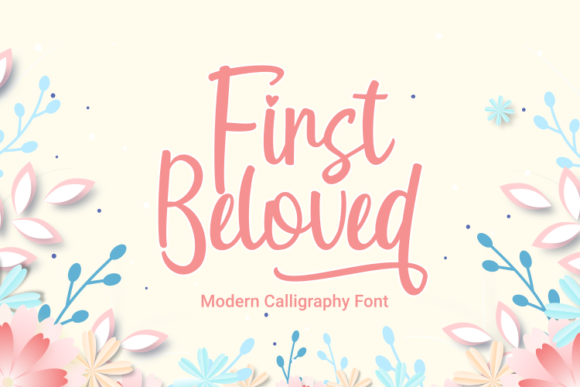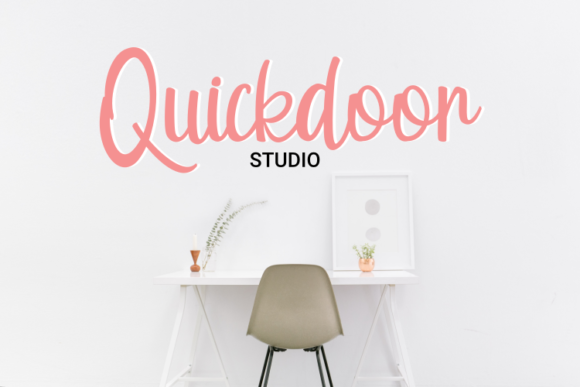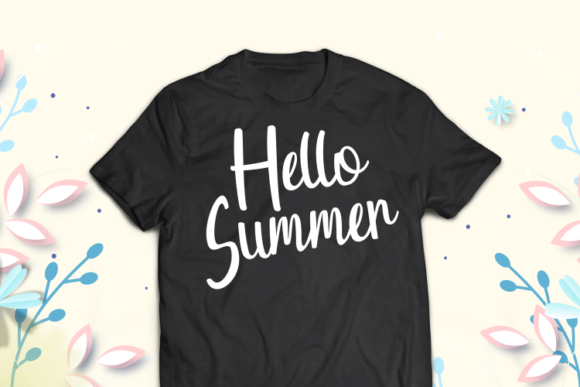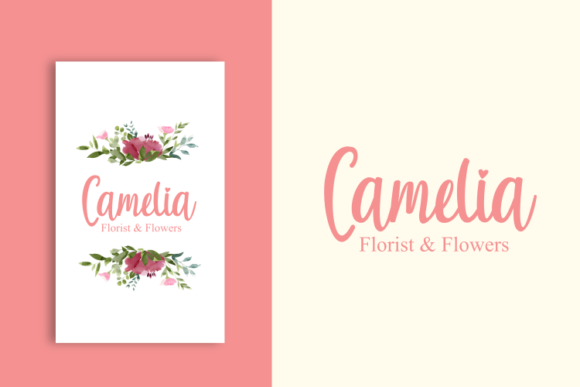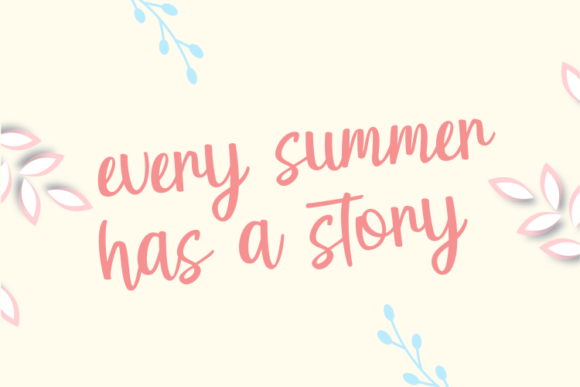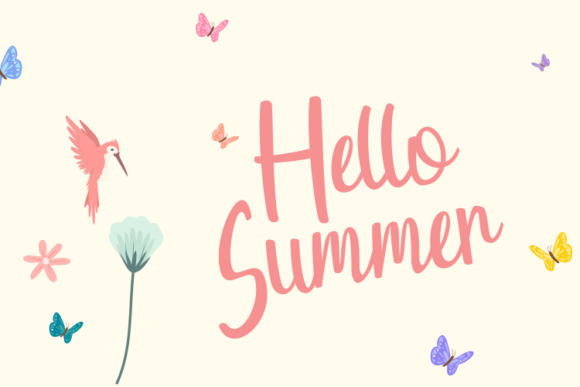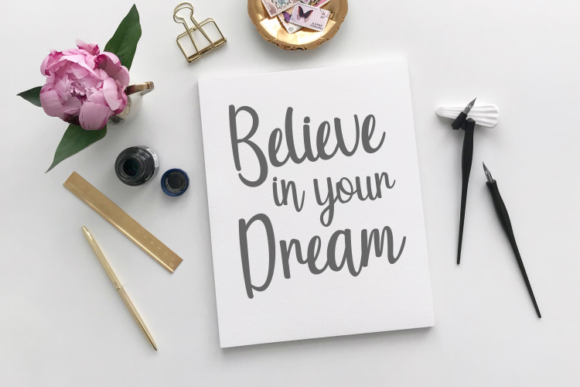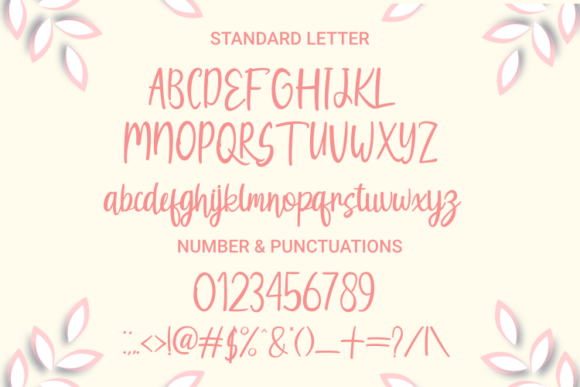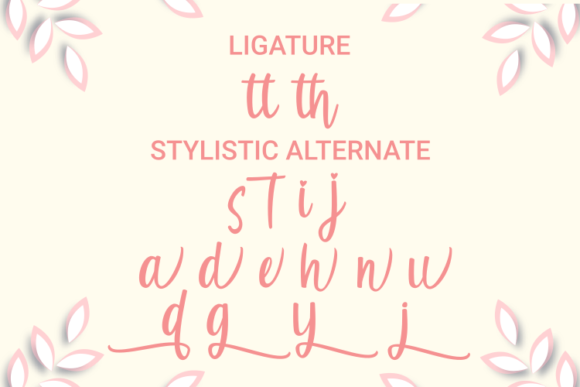
First Beloved Font
About First Beloved Font
First Beloved feels equally charming and modern. This stunning handwritten font is a stylish homage to classic calligraphy. It features a varying baseline, smooth lines, gorgeous glyphs and stunning alternates. First Beloved is the perfect font for making original and outstanding designs.